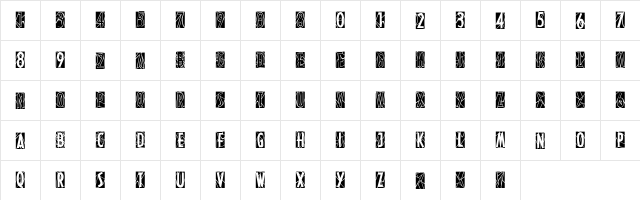
ModernStainedGlass Regular
Design Context for ModernStainedGlass Typeface
ModernStainedGlass is a composed and adaptable typeface that performs quietly and consistently across a wide range of design contexts.